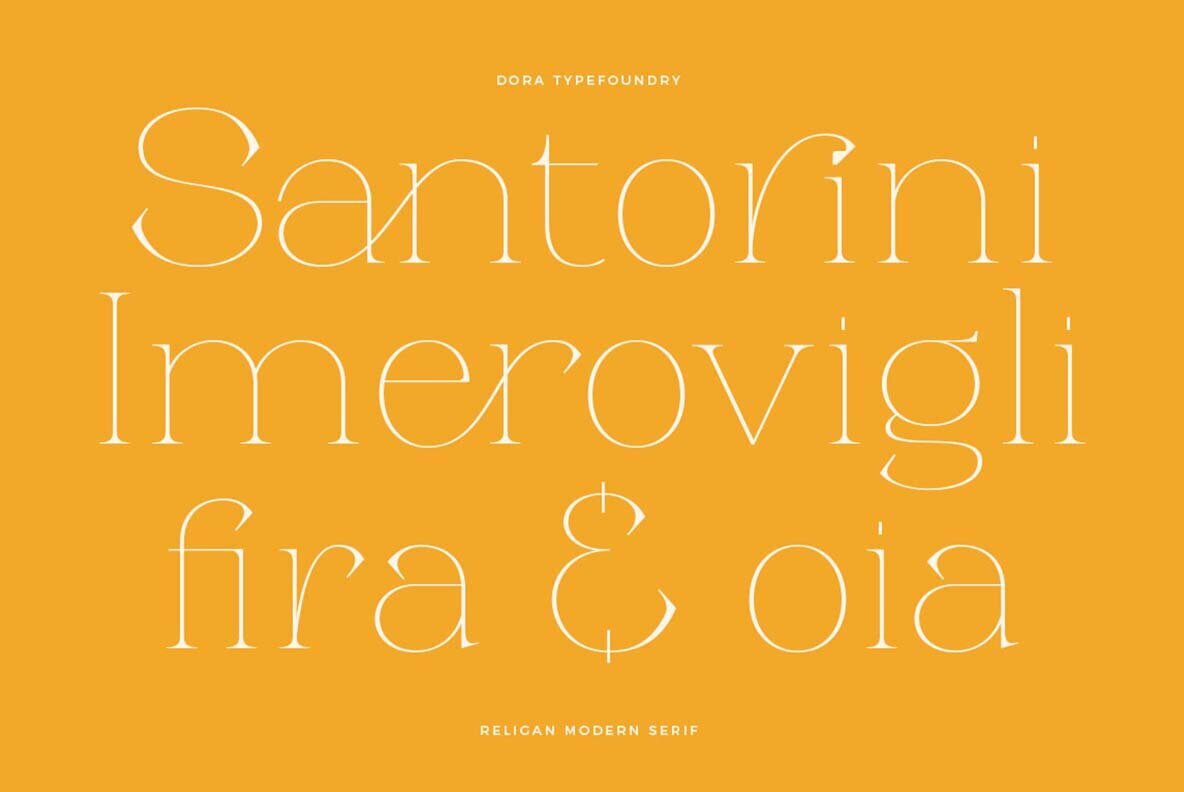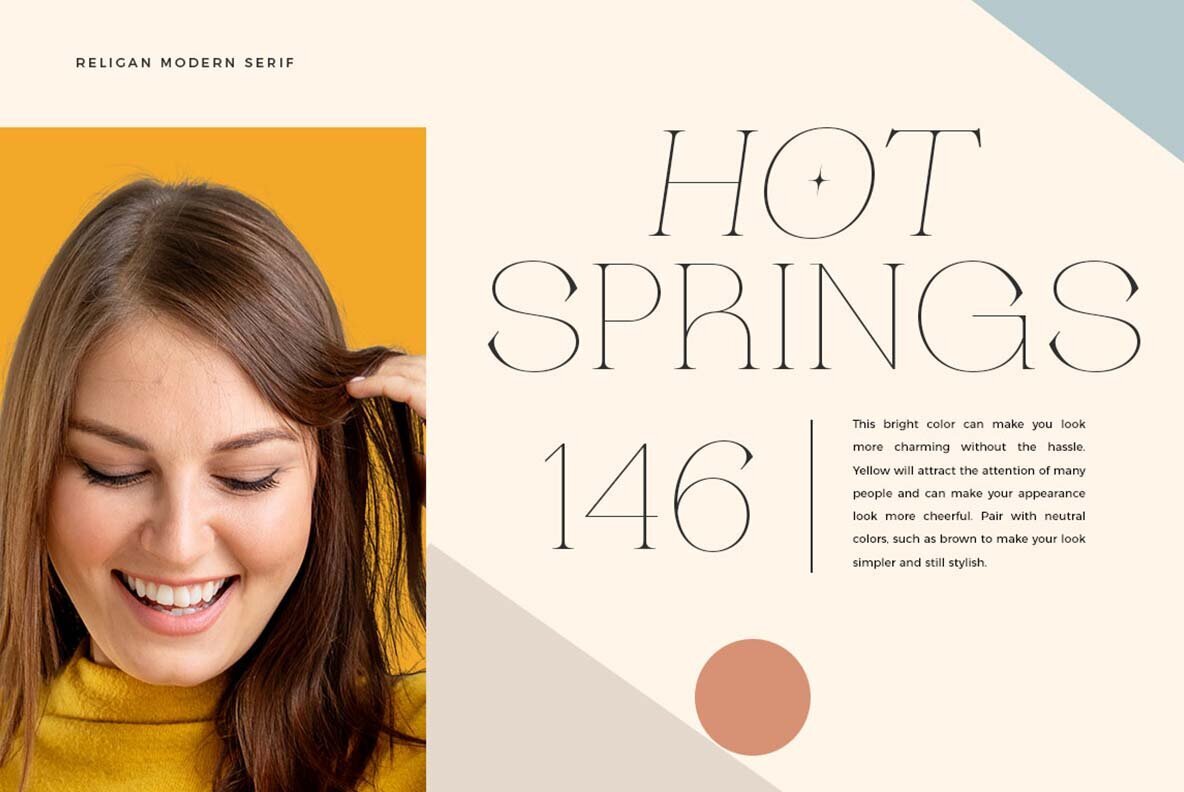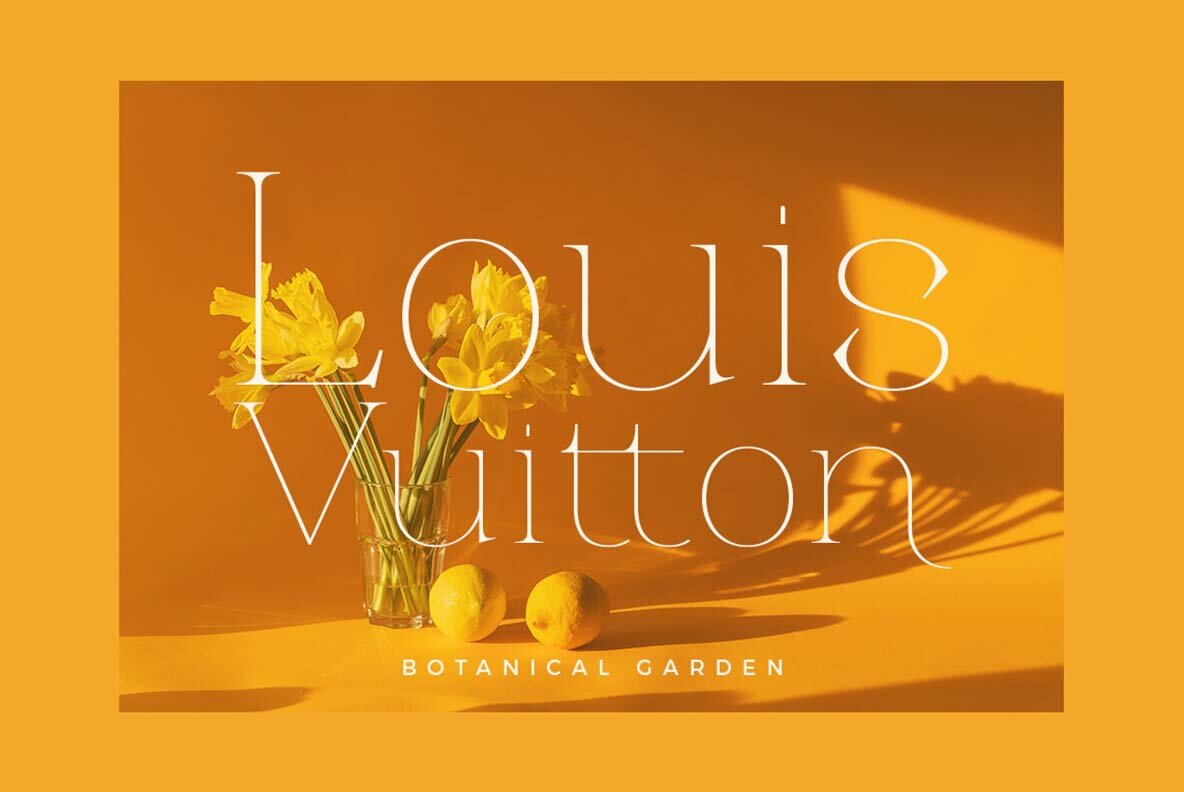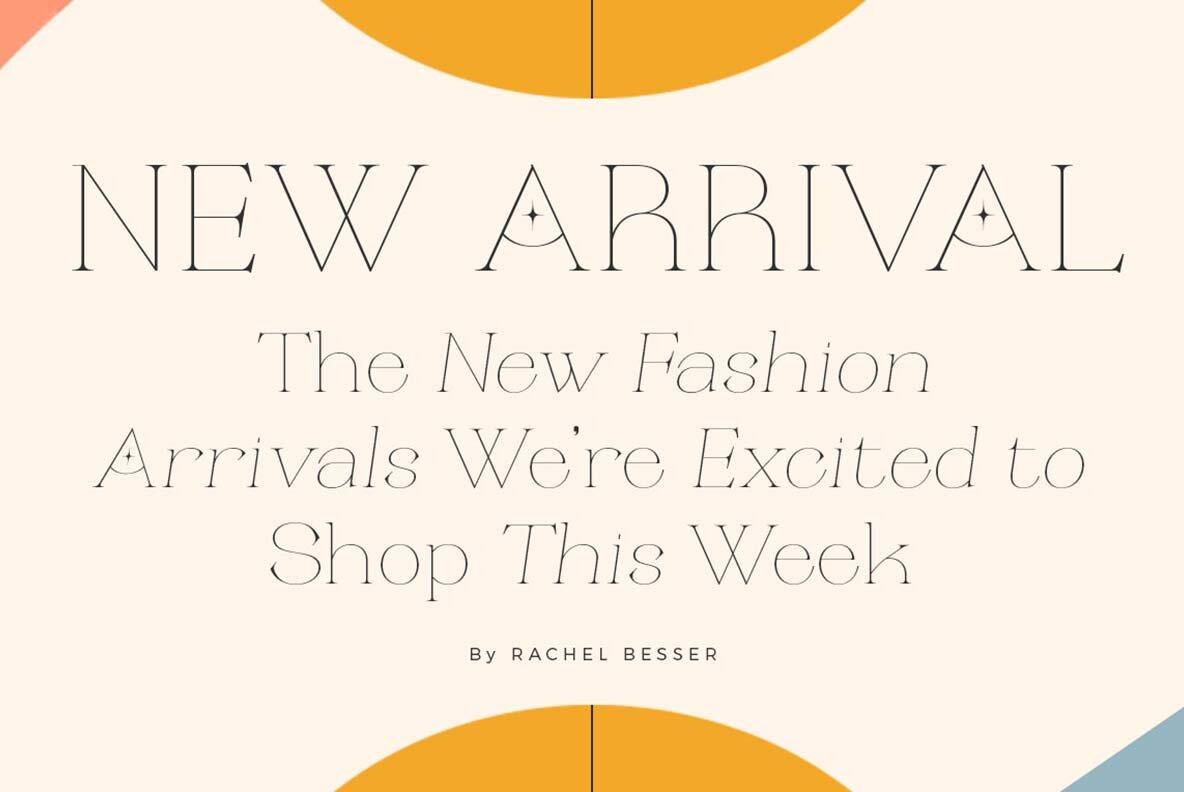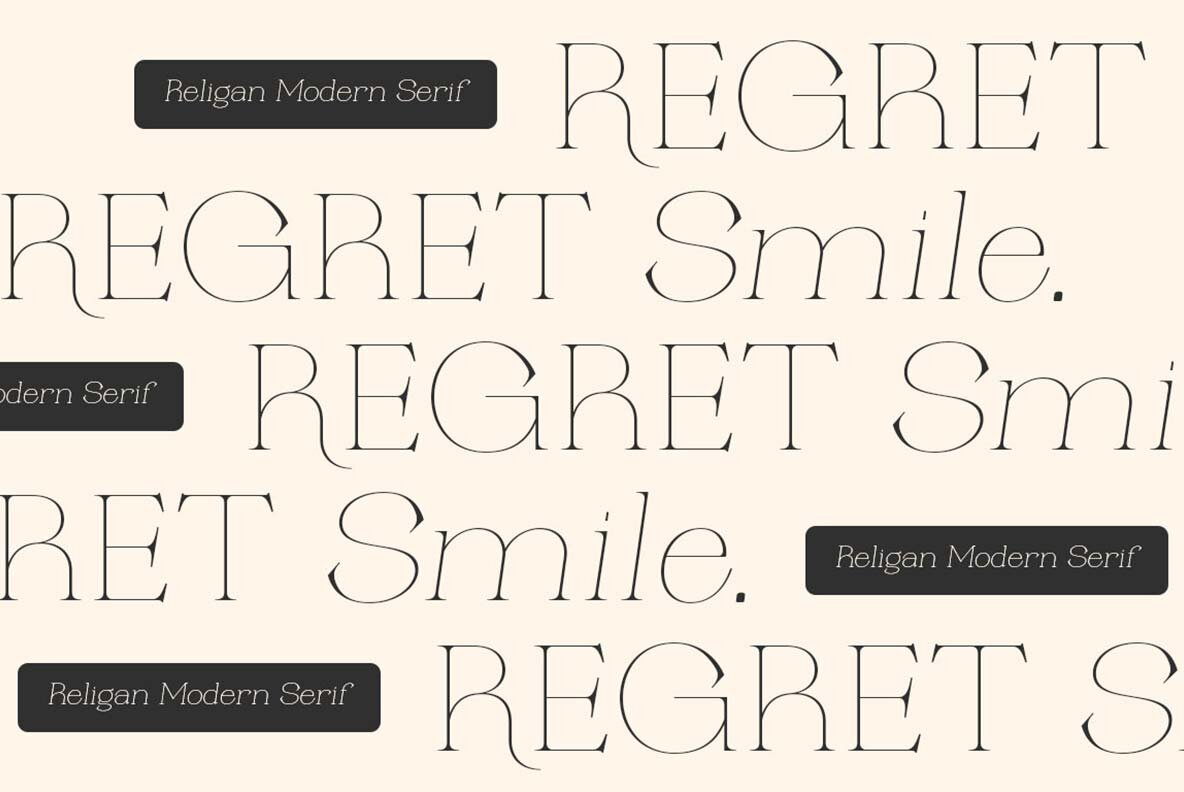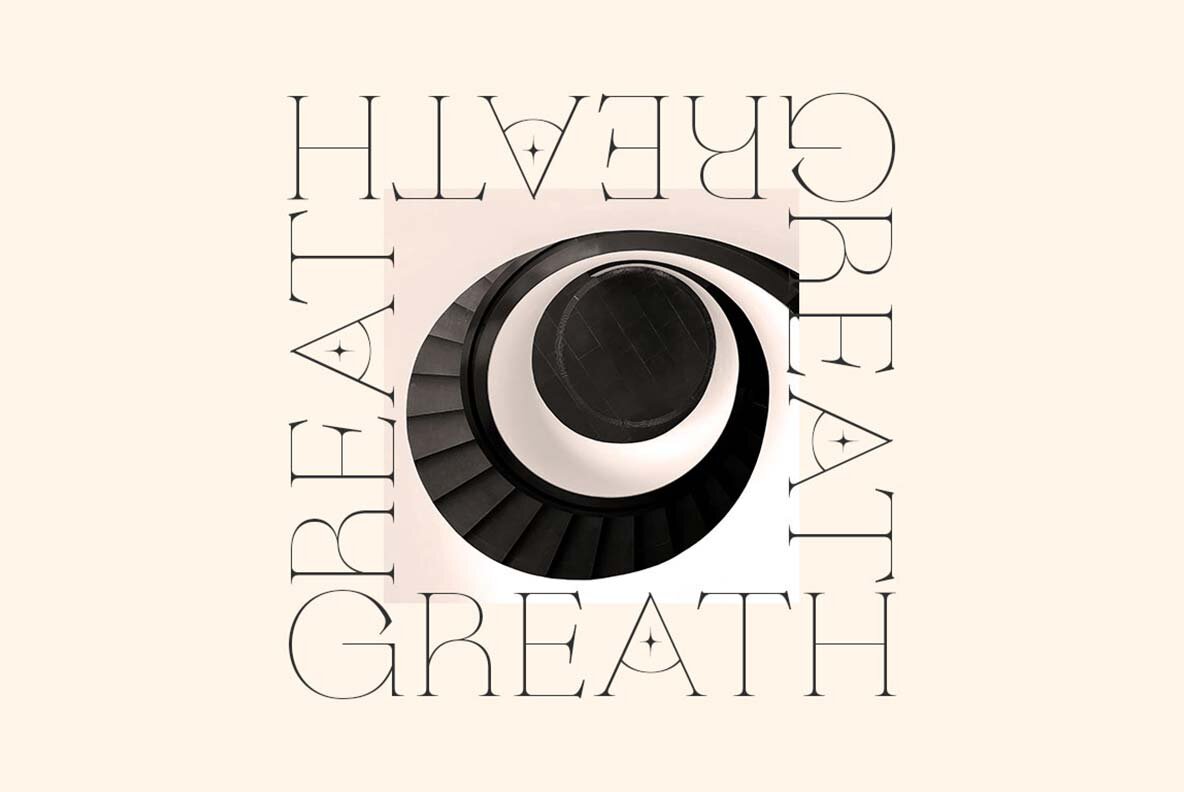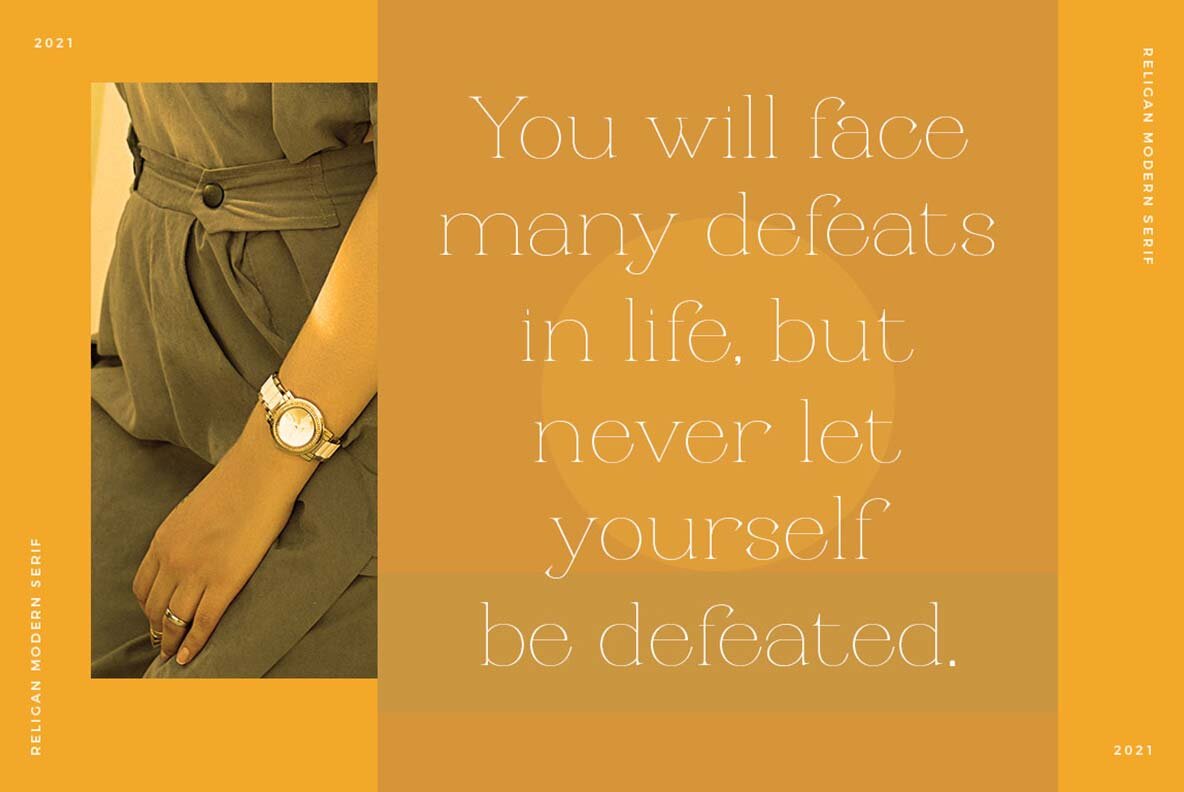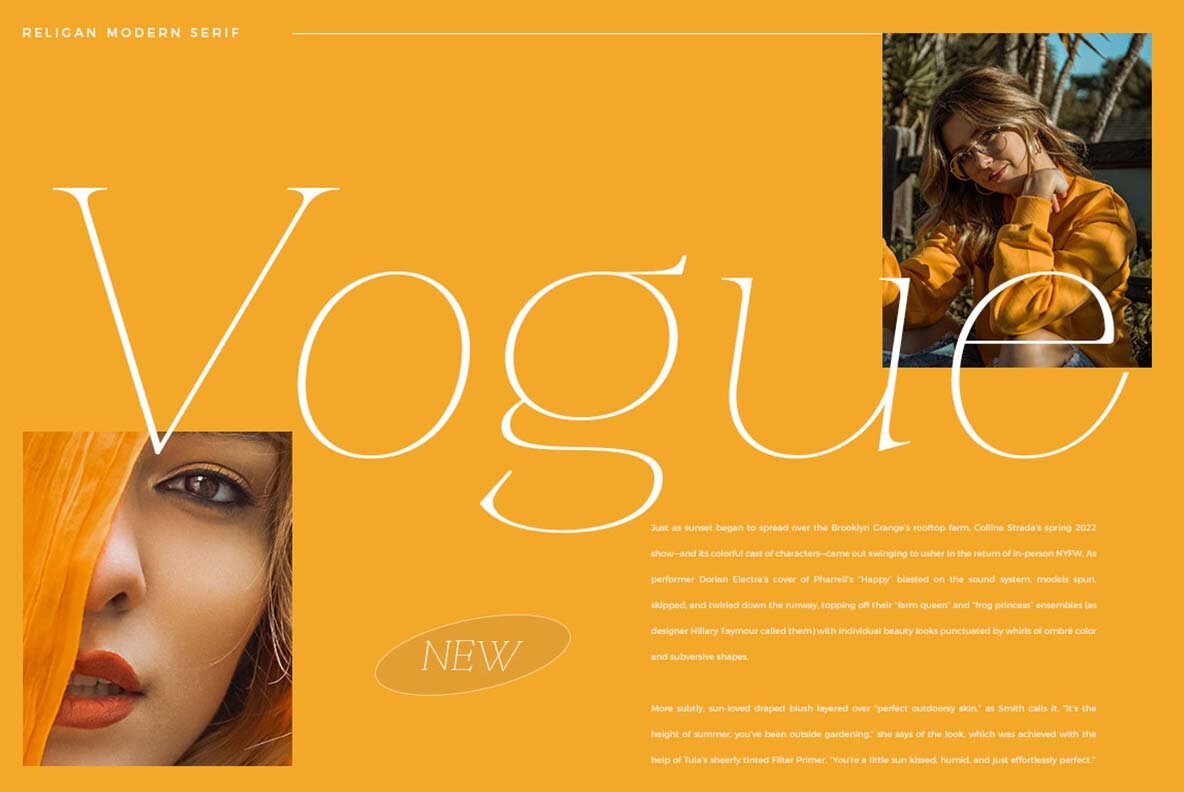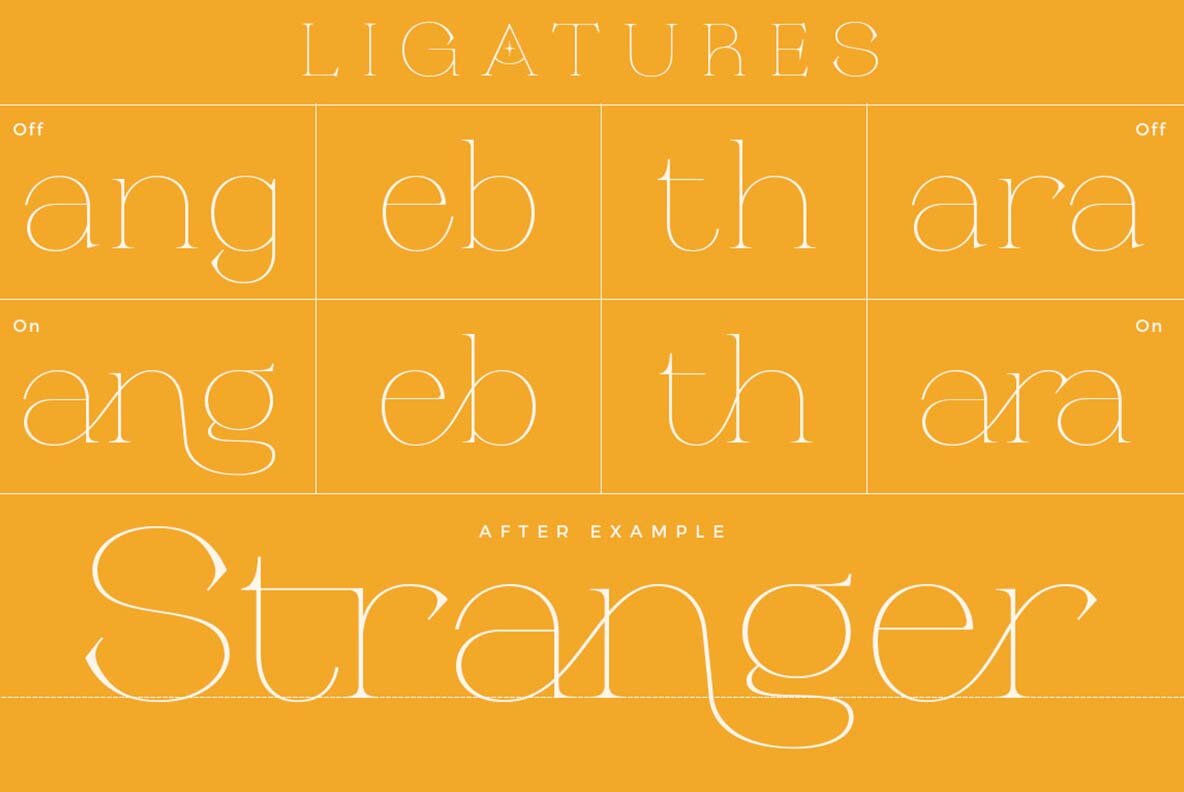
Religan Font
The Religan serif font exudes luxury and elegance, offering a distinctive and fashionable appeal for your design projects. This modern serif typeface includes various on-trend ligatures and special characters, enabling a unique style that stands out. Its versatility allows it to seamlessly pair with other fonts, making it perfect for a wide range of design applications.
Ideal for logotypes, branding endeavors, wedding monograms, and invitations, Religan also shines in blog headlines and more. Its elegant design and customizable features enhance visual aesthetics, making it a valuable asset for projects that demand sophistication and style.